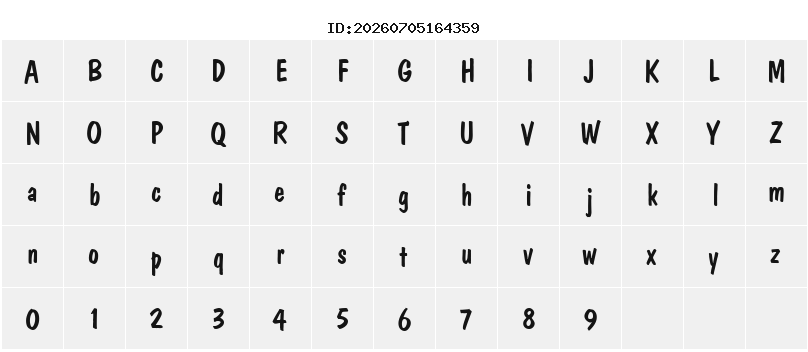
• Font Name: Don Casual
• Full Font Name: Don Casual
About Don Casual.ttf
Don Casual.ttf is a modern, elegant sans-serif font designed for ultimate readability and visual harmony. Perfect for branding, headlines, web design, and print materials.